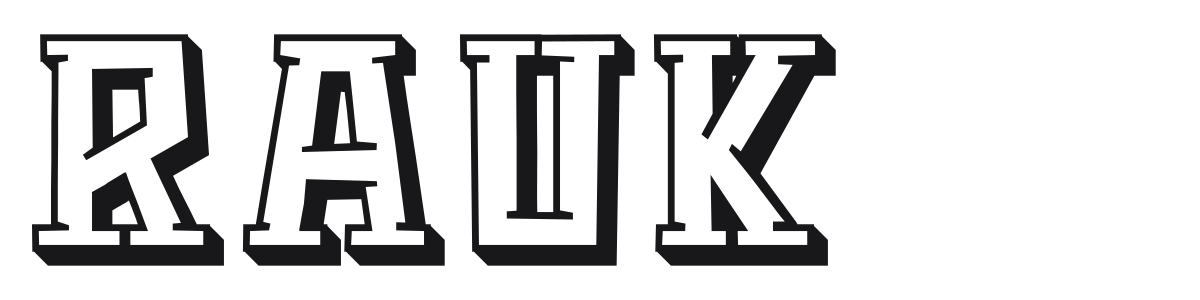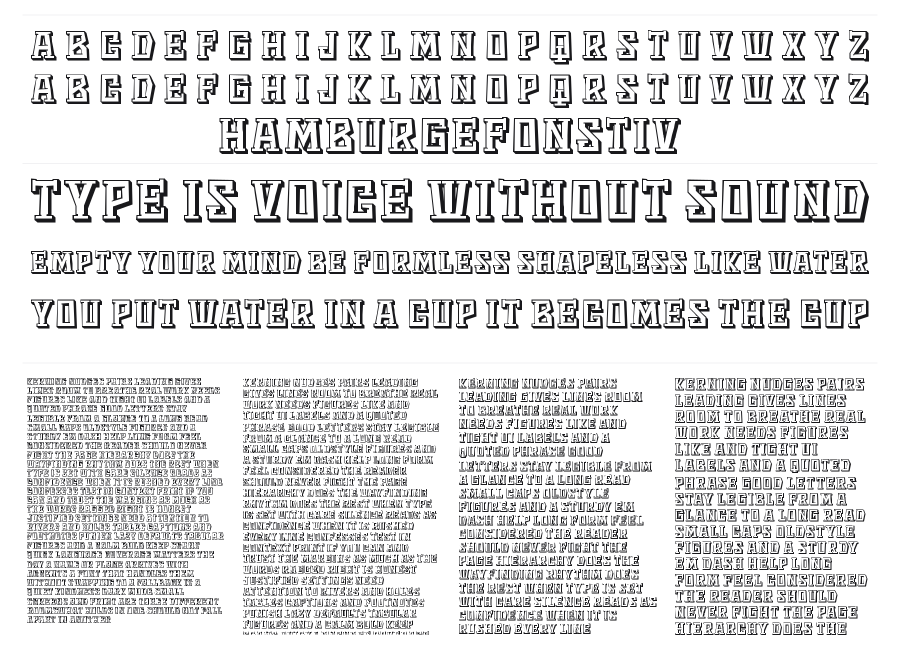
Rauk
Rauk is a bold condensed slab-serif with an inline outline and layered drop shadow that gives it a vintage three-dimensional look. The design draws from 19th-century American wood type and collegiate athletic traditions, landing somewhere between a Western saloon sign and a varsity jersey. It commands attention at large sizes and suits any project that needs loud, confident retro energy.